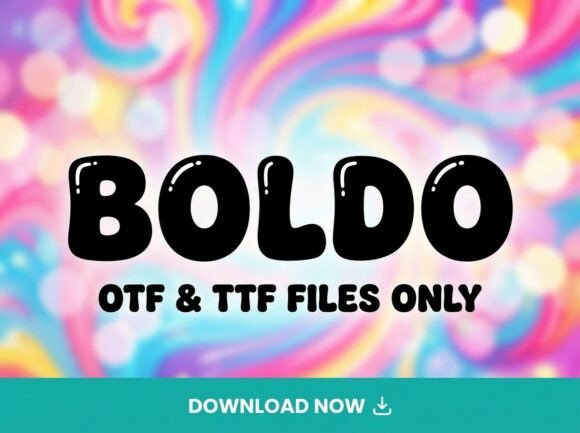
Boldo
Finding the right design elements can be challenging, but Boldo offers an exceptional collection that elevates your work instantly.
Whether you are creating POD (Print on Demand) products, wedding invitations, or social media graphics, Boldo is an ideal fit.